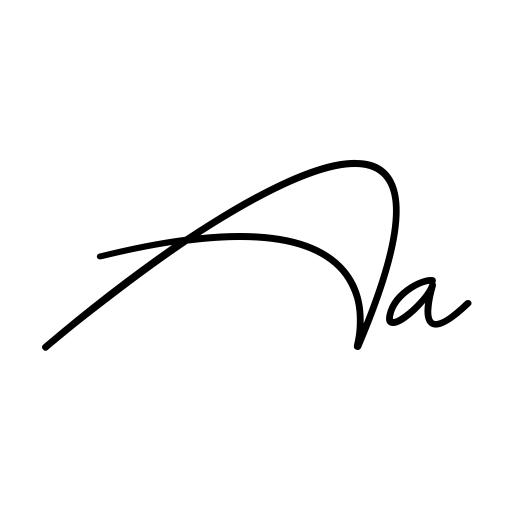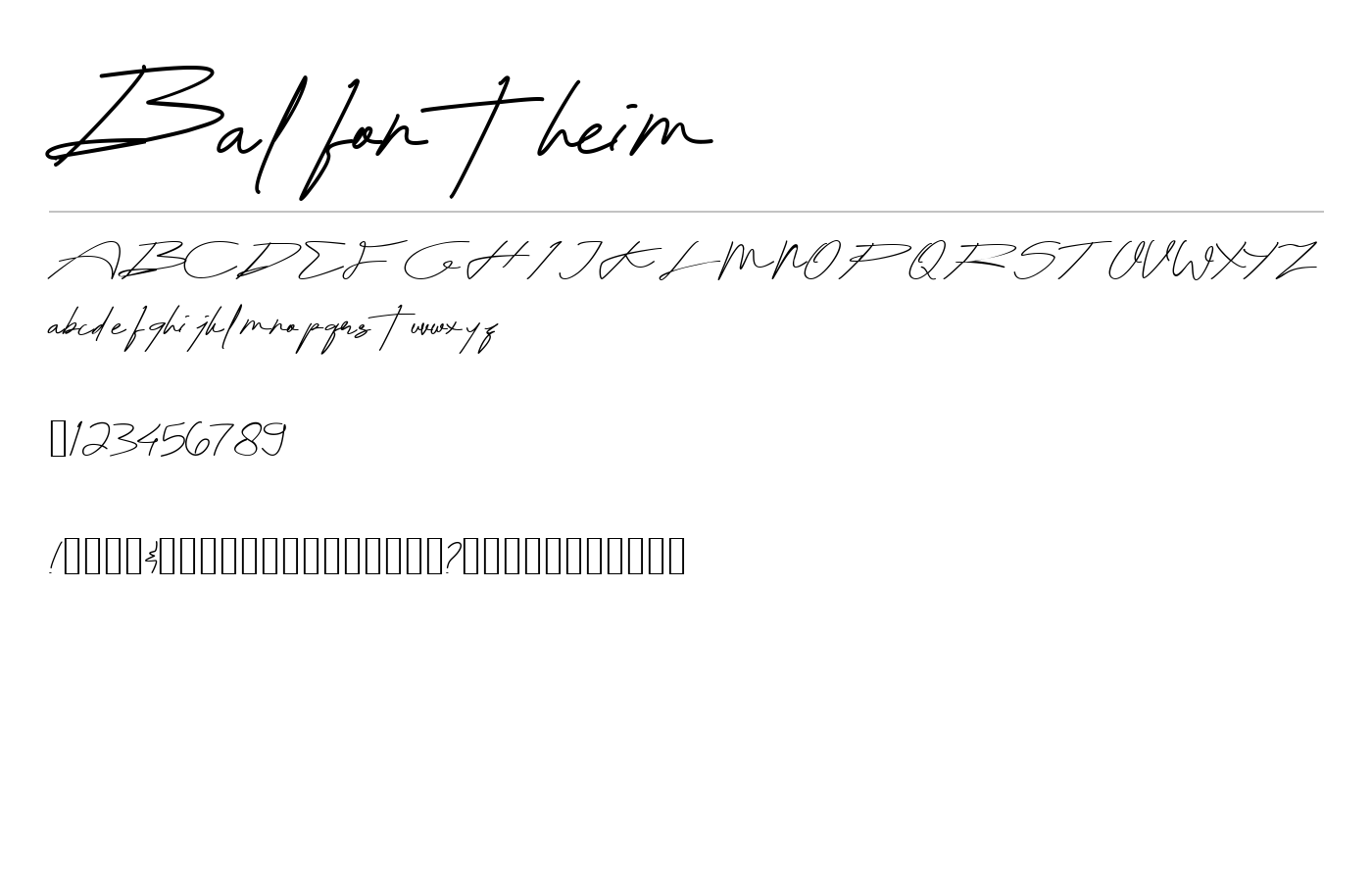
Balfontheim is a delicate, elegant handwritten script font with a light weight and flowing, thin strokes that mimic natural penmanship. Its slender, airy letterforms and tall x-height give it a refined, personal touch, making it ideal for sophisticated branding, invitations, and creative headlines where a stylish, intimate feel is desired. This font works well when a subtle, artistic expression is needed to convey elegance and individuality.
Balfontheim Font
About Balfontheim Font
| Font family | Balfontheim Font |
| Designer | Risegraph |